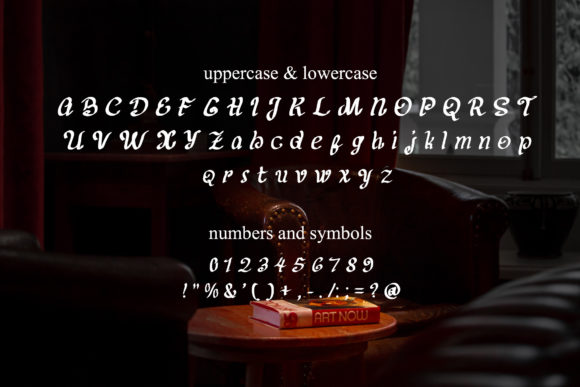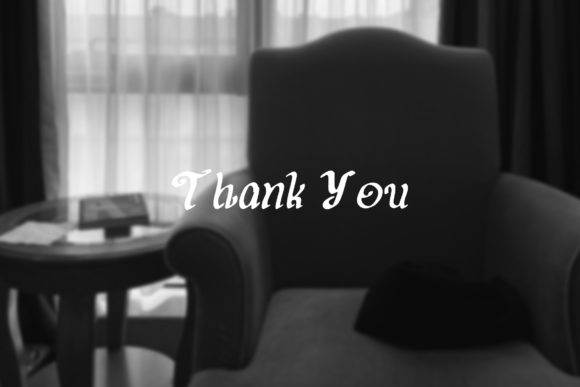
Introduction to Slowly Font
Slowly is a romantic handwritten font with lovely swirls and a natural style.
It would be perfect for creative projects that need an authentic appearance with a classy twist .
Why Choose Slowly Font?
Slowly Font offers exceptional quality and versatility, making it a valuable addition to your design toolkit. Whether you’re creating for personal projects or commercial use, Slowly Font delivers professional results.